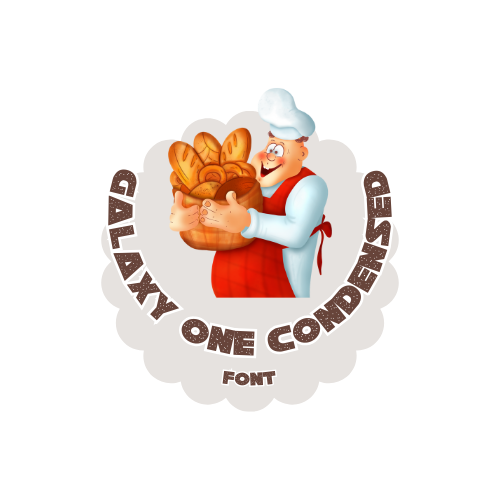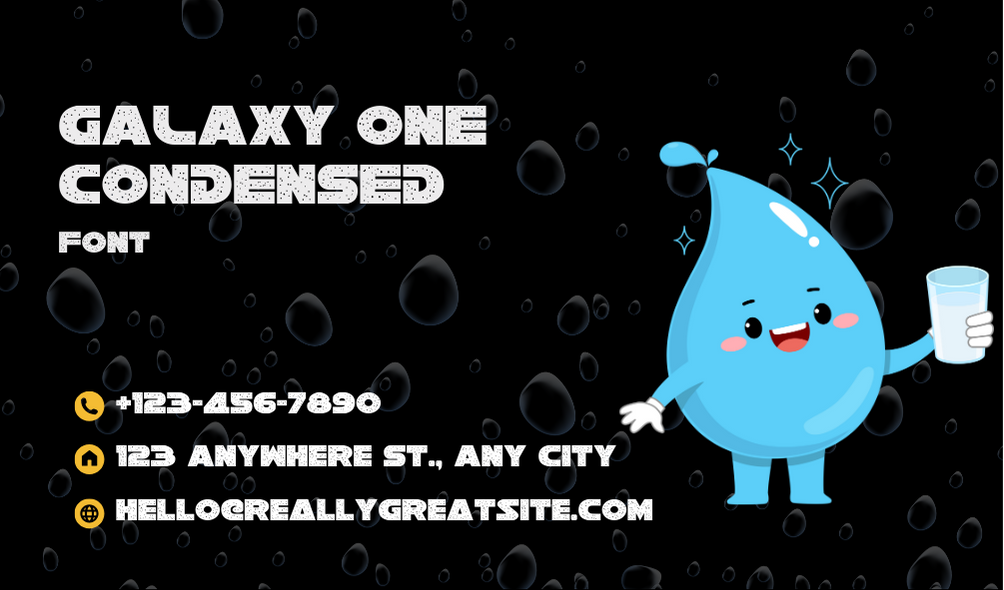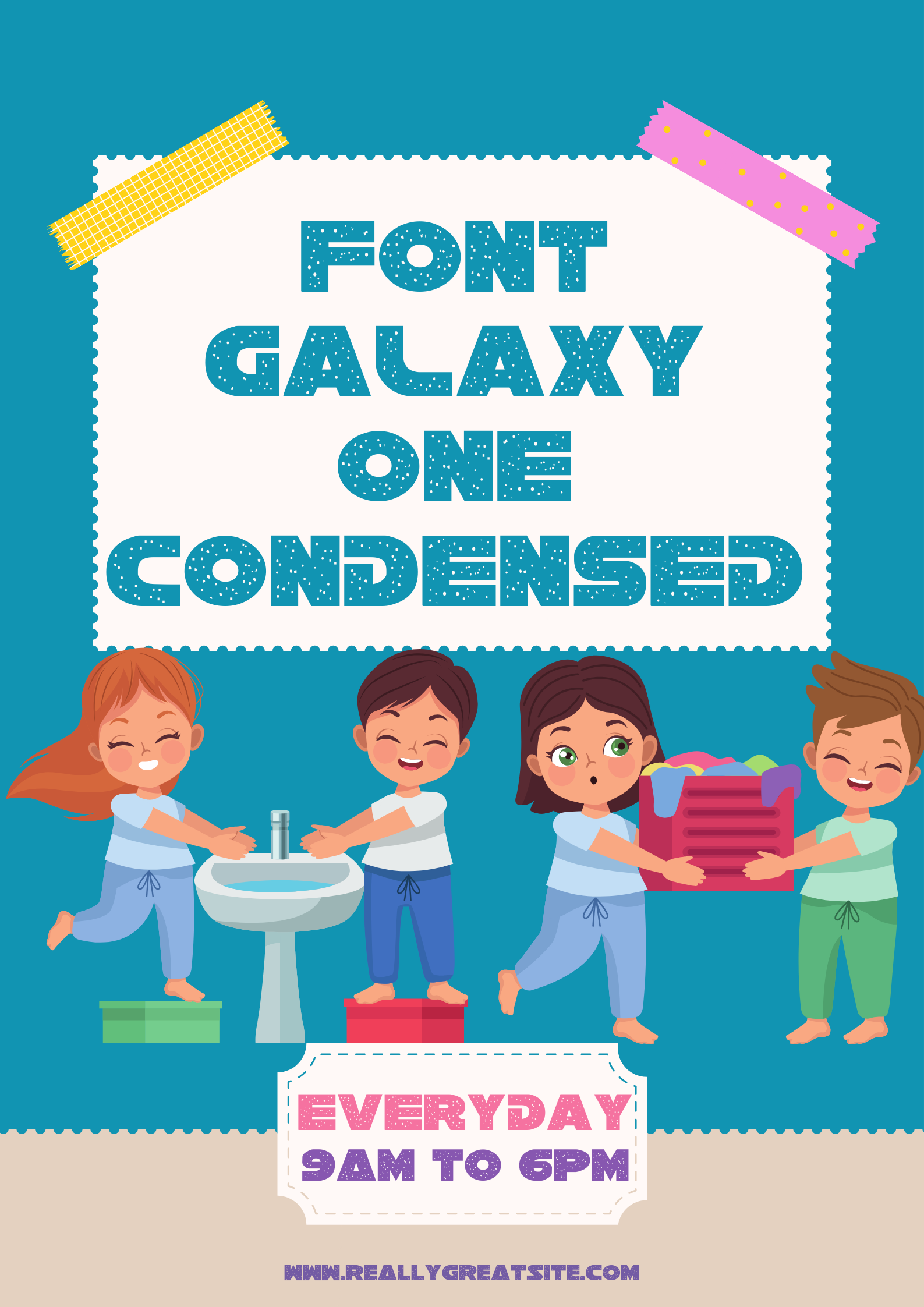
Galaxy One Condensed font is ideal for adding a touch of fun to your designs. It belongs to the Condensed subfamily. This font was created by Dan Zadorozny and is available for personal use at no cost.